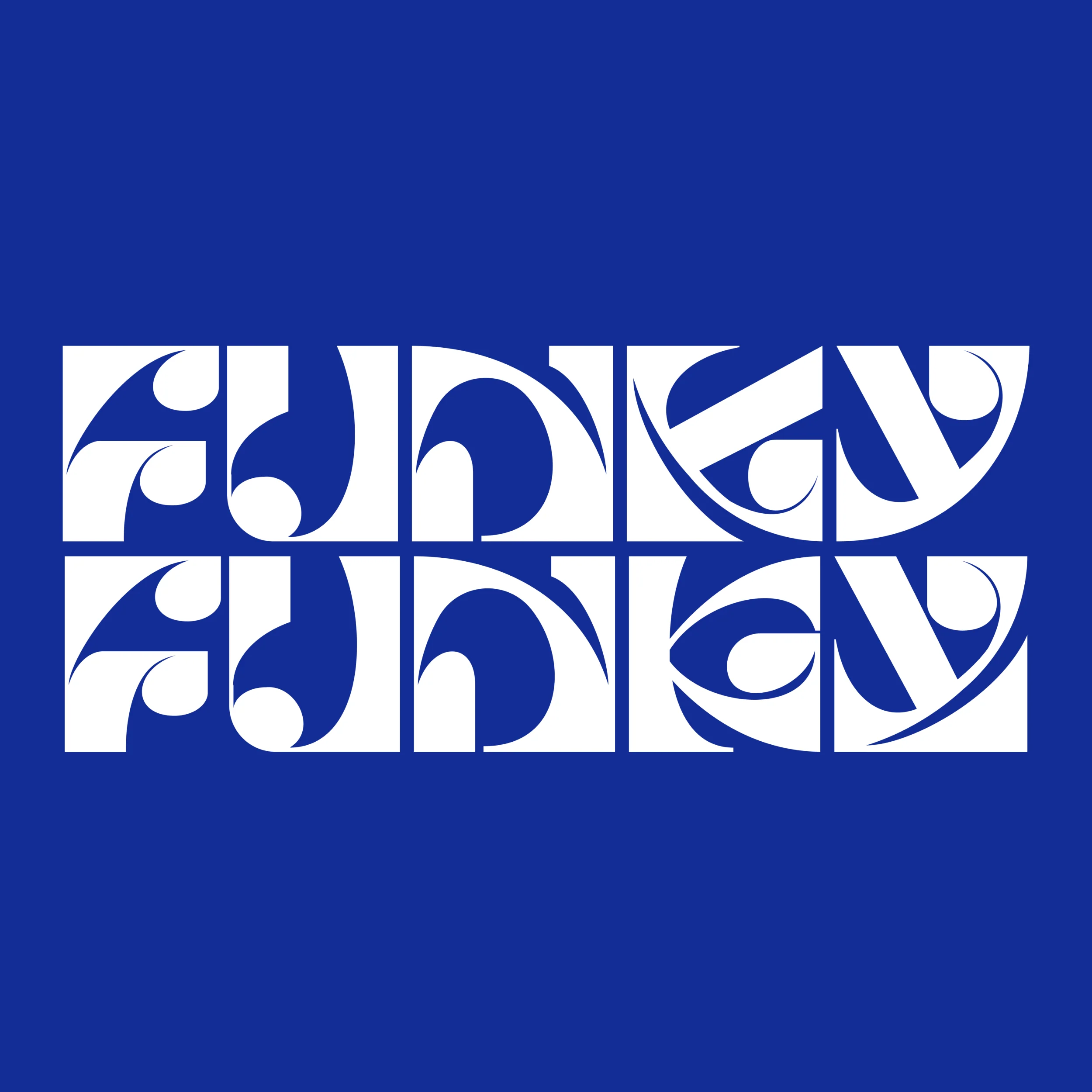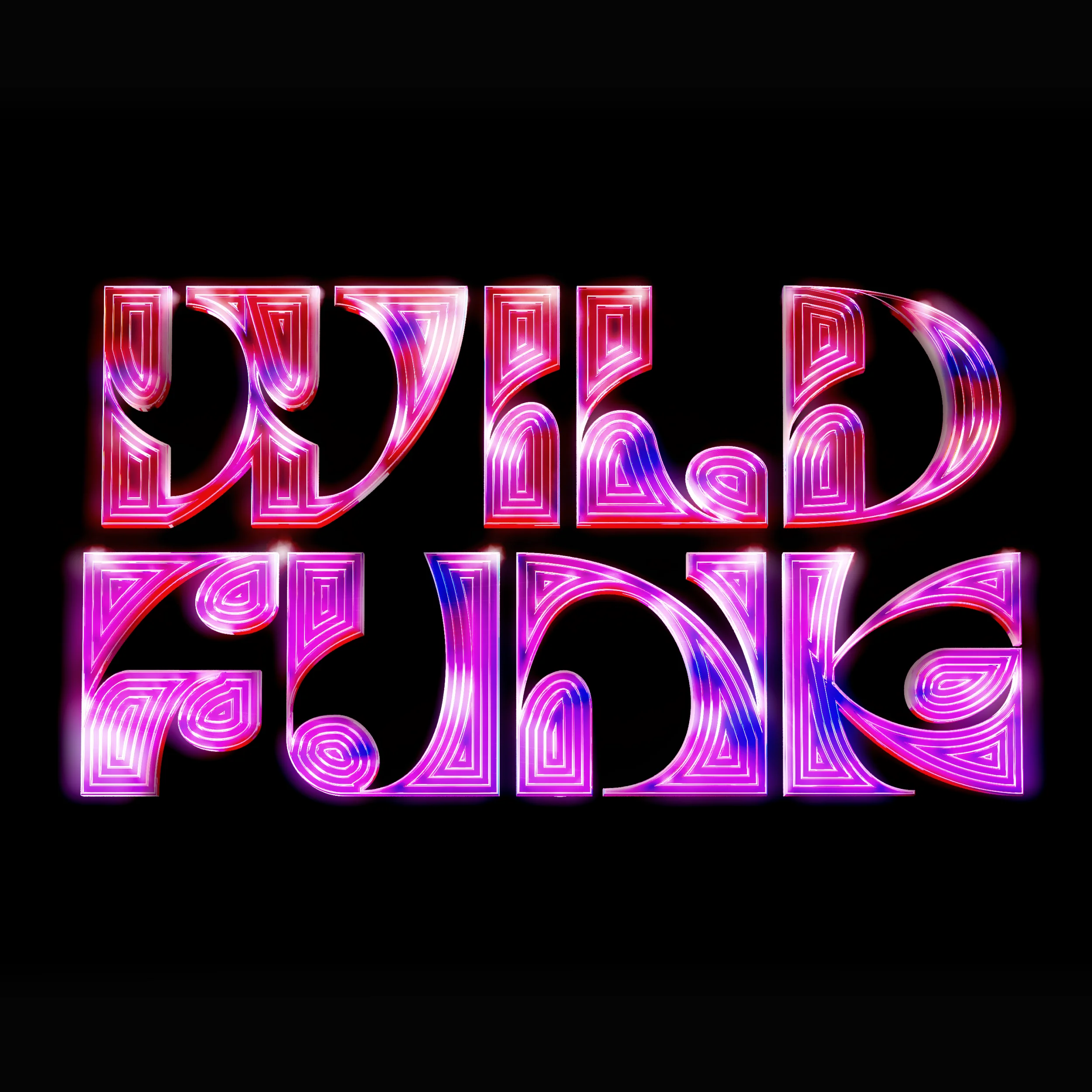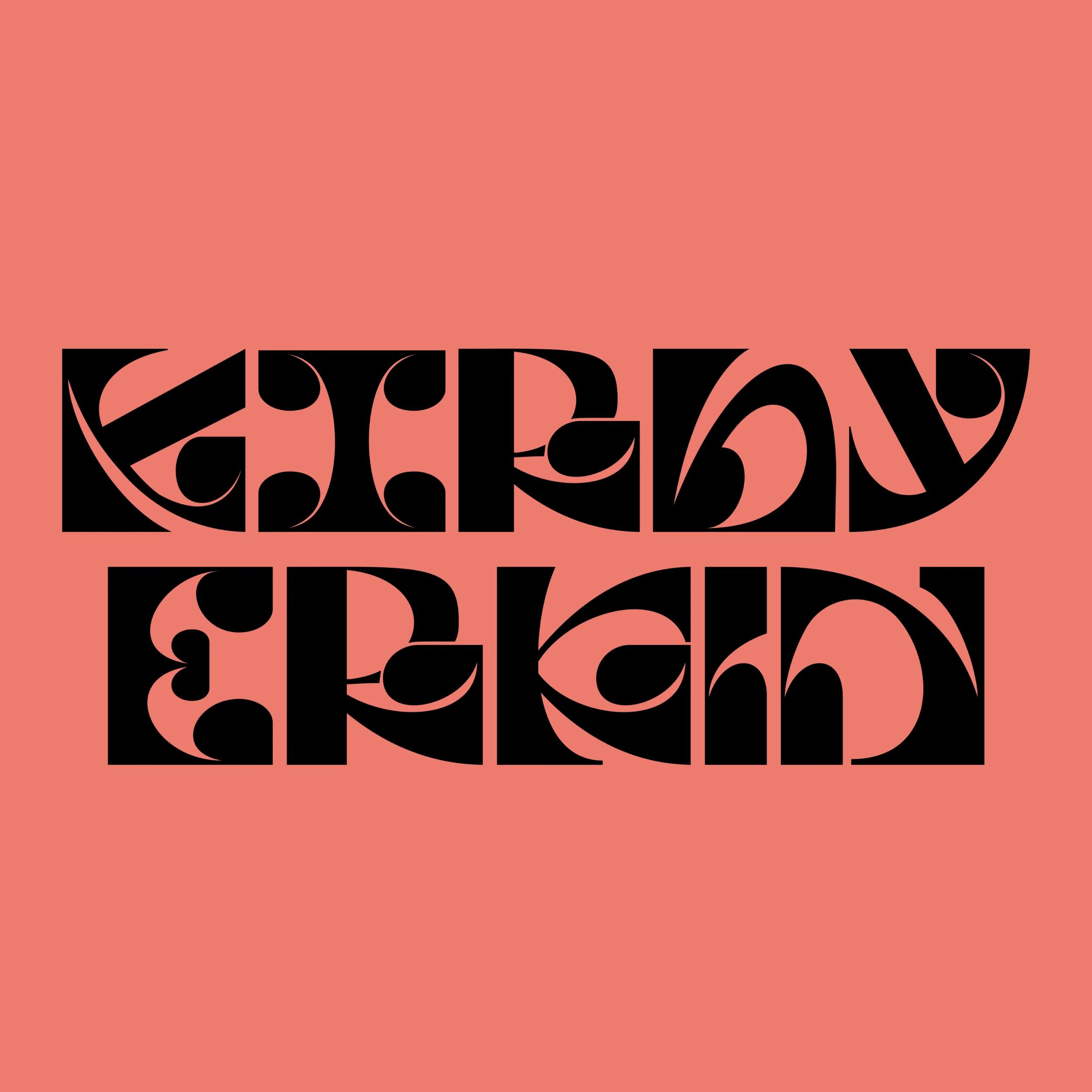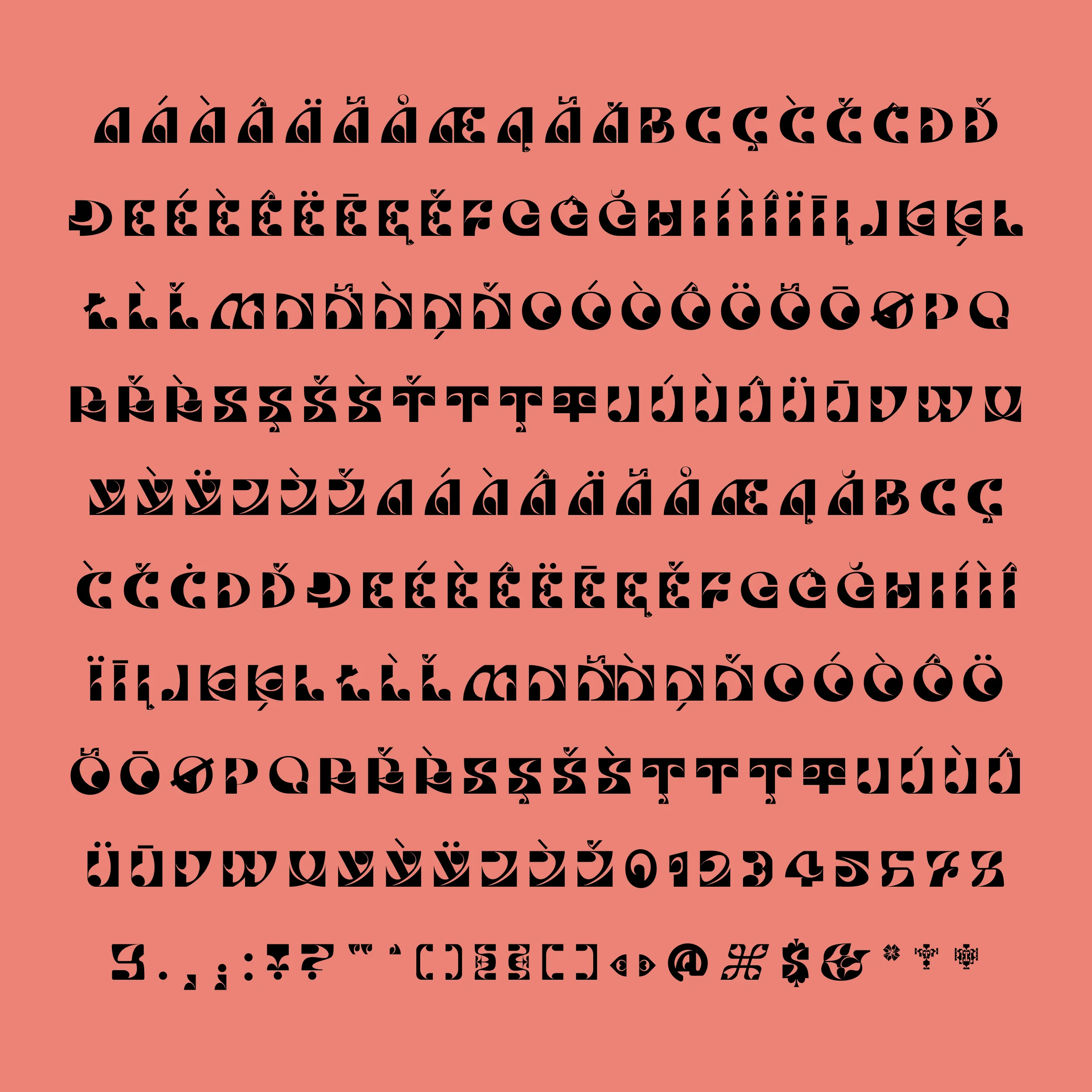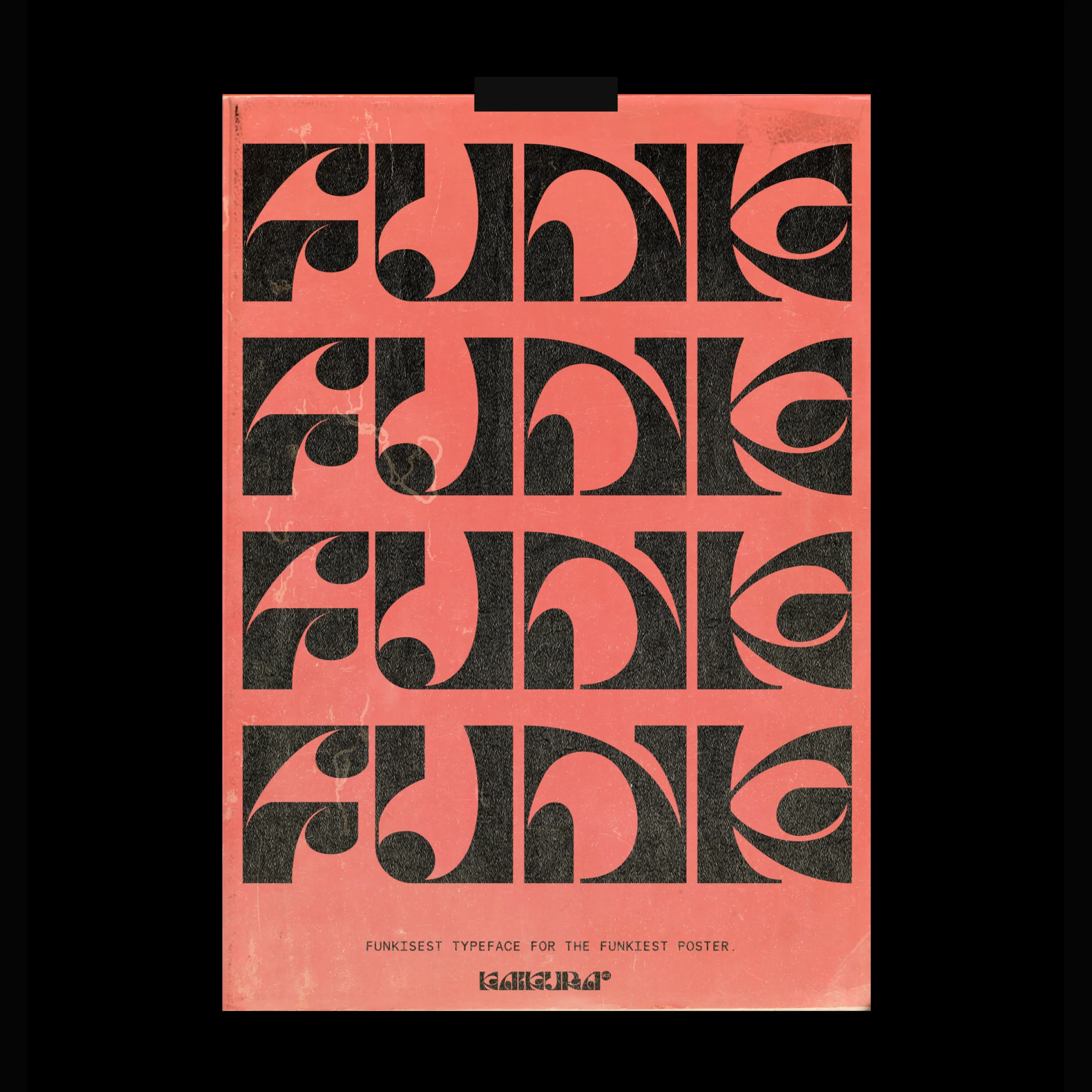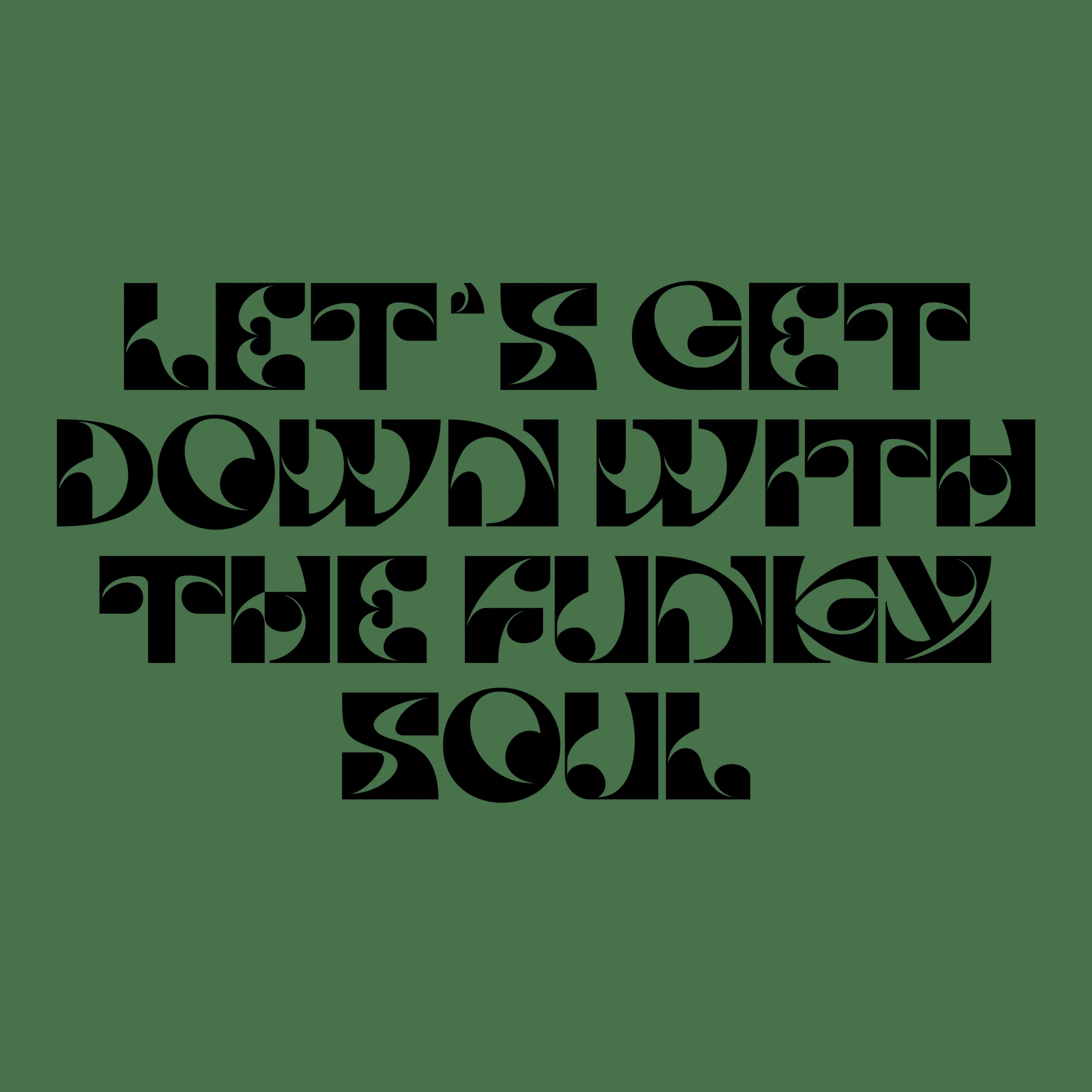
BM Kaikura
Kaikura is a homage to the 1970s musicians, capturing the soul and funky moods of the era. It is a trippy, experimental follow-up to the "Erkin" typeface.